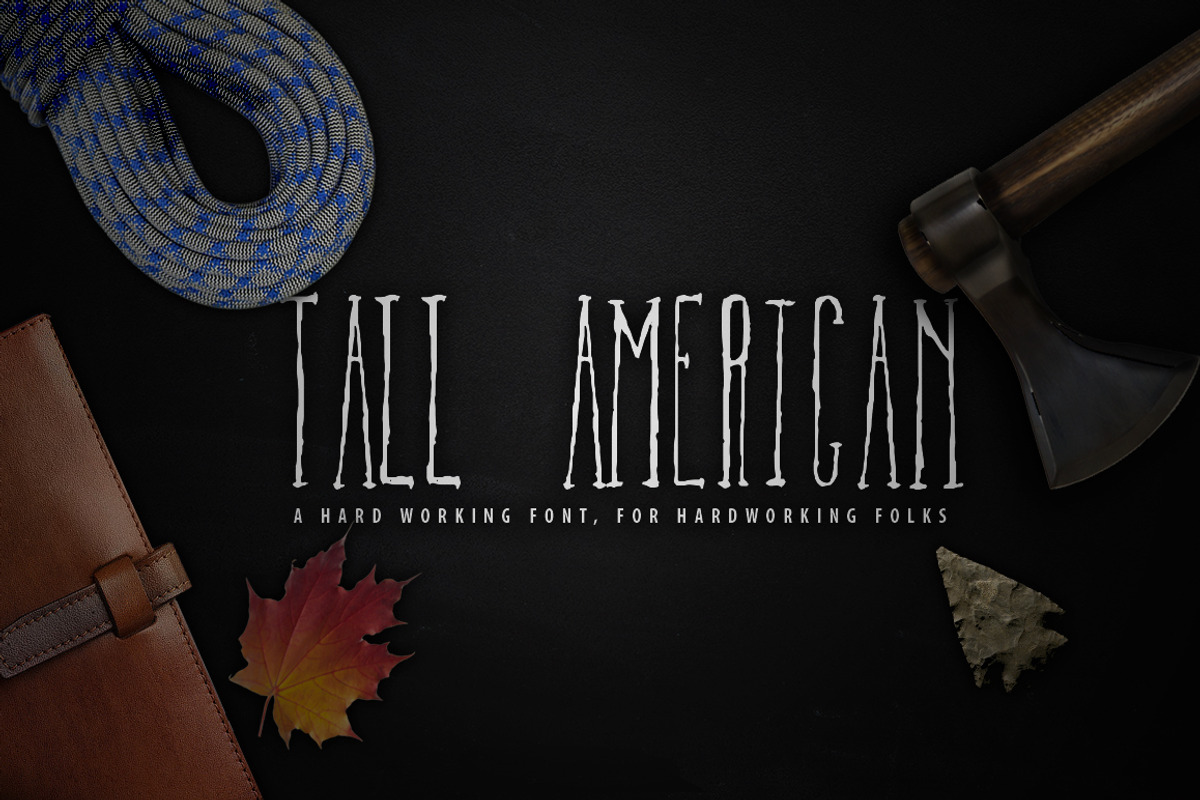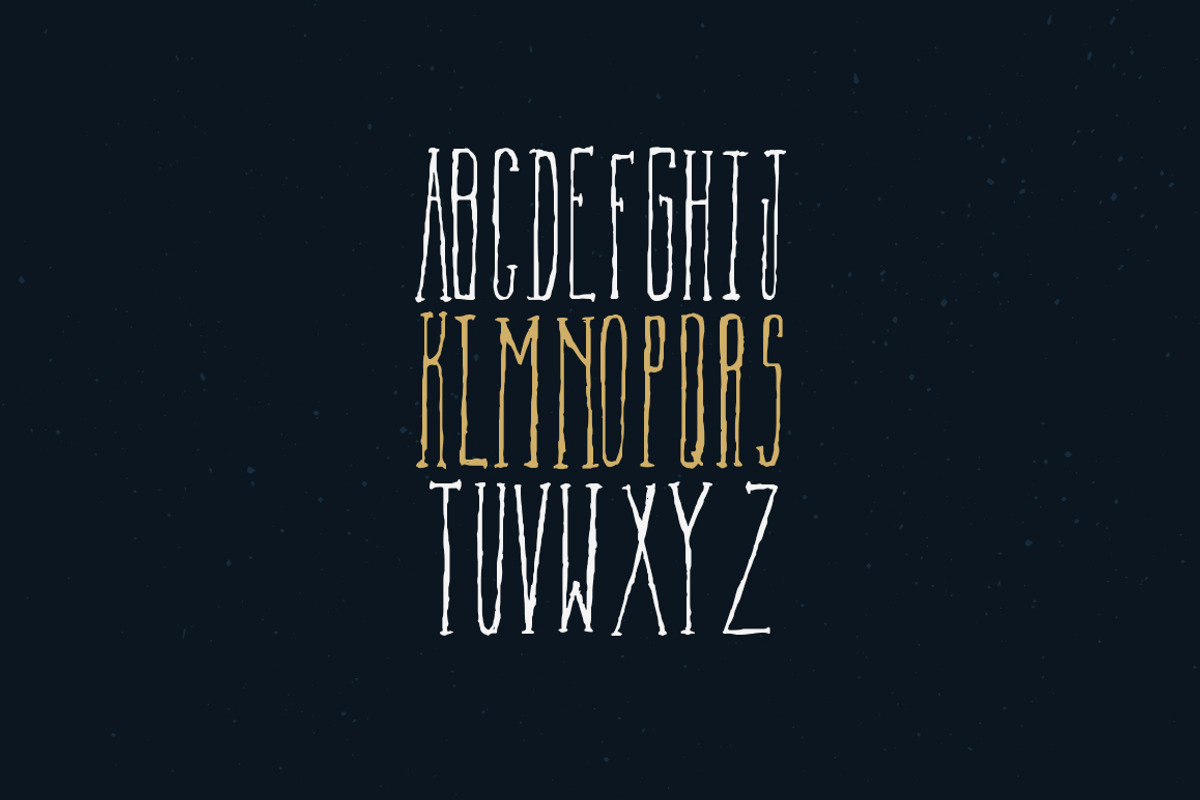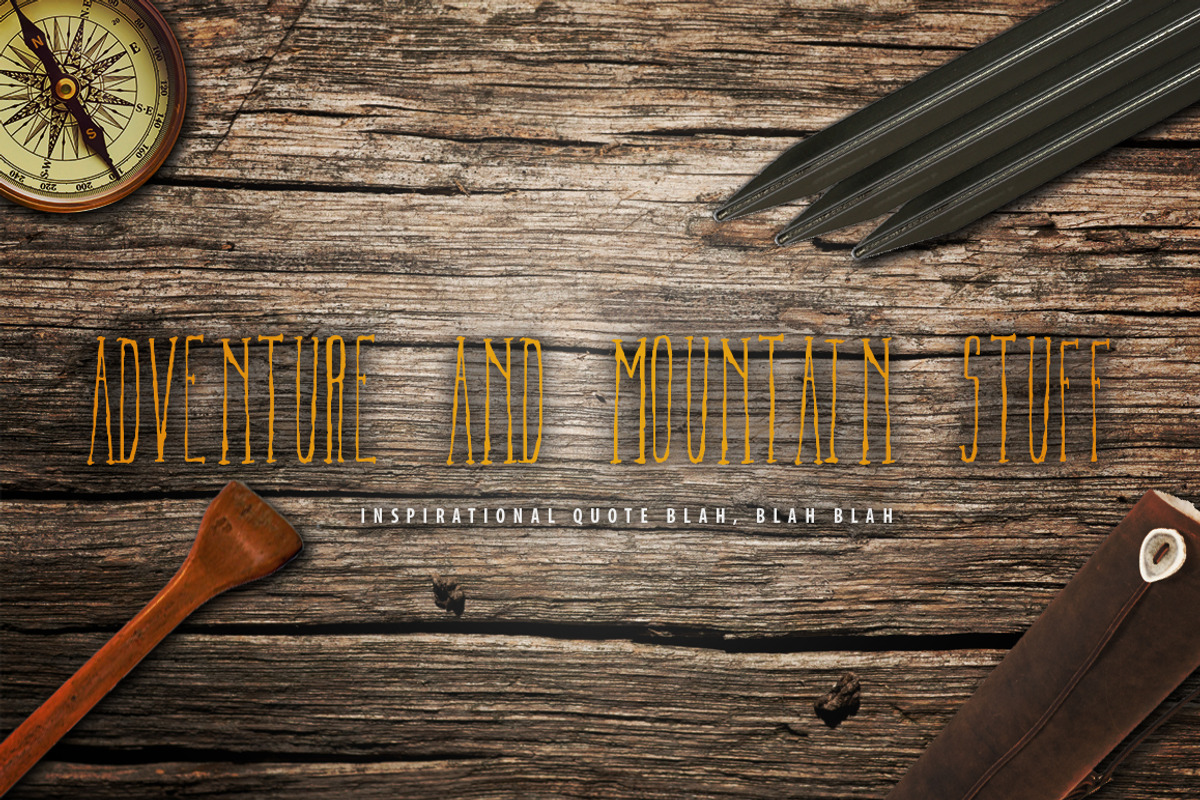
Tall American Font
Tall American Font by 5THFDM is a font selected for branding, posters, packaging, typography.
Why Tall American Font is worth a look
Tall American Font by 5THFDM fits naturally into Branding, posters, packaging, typography.